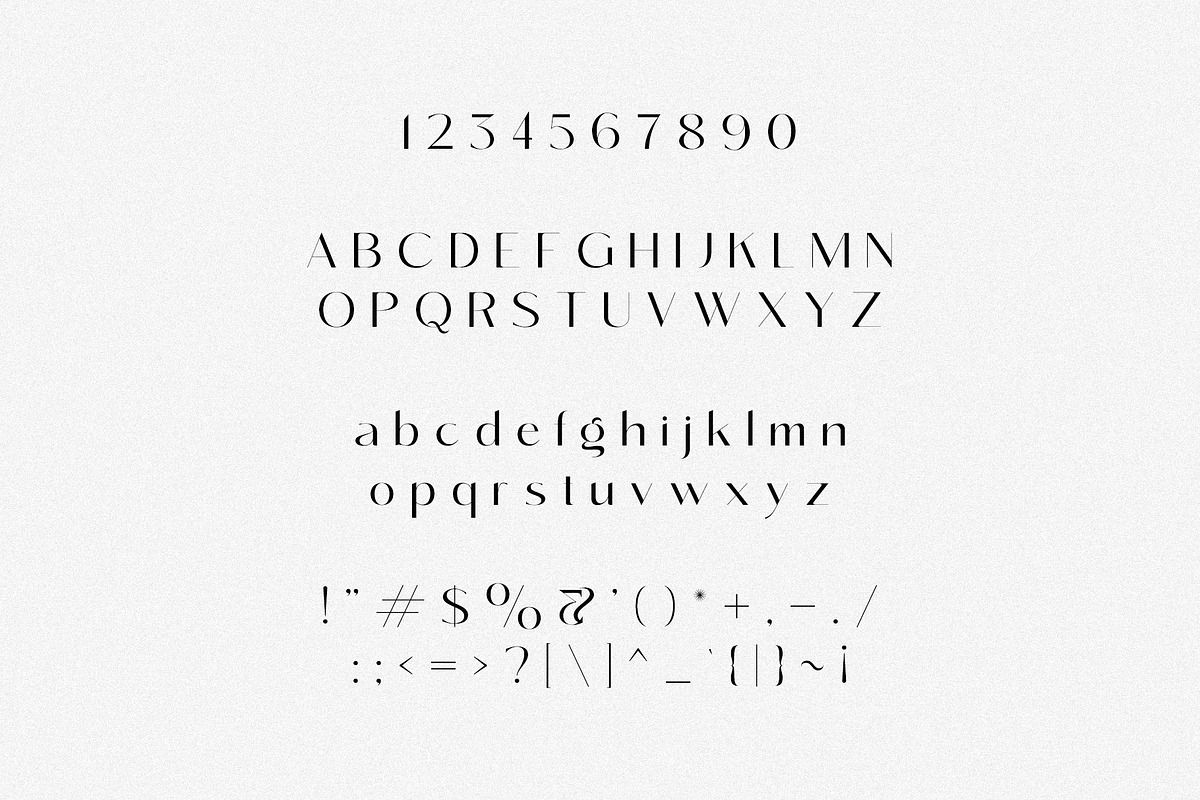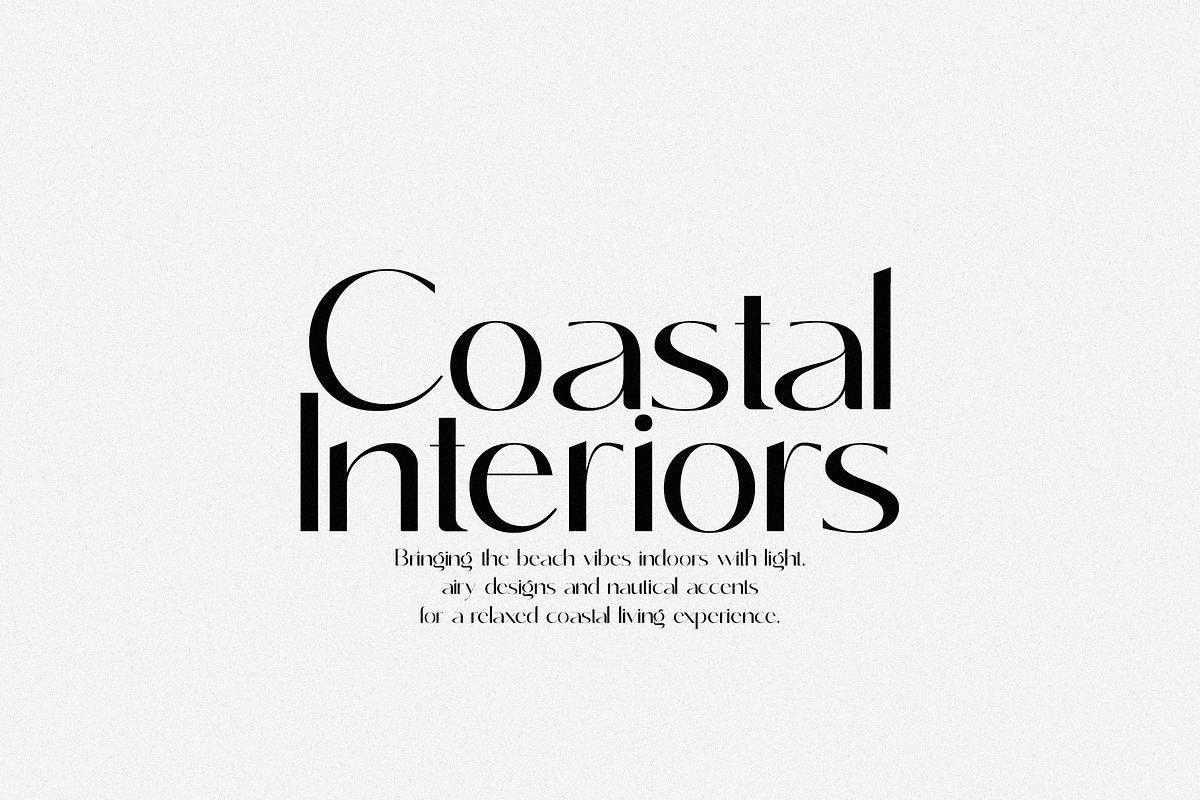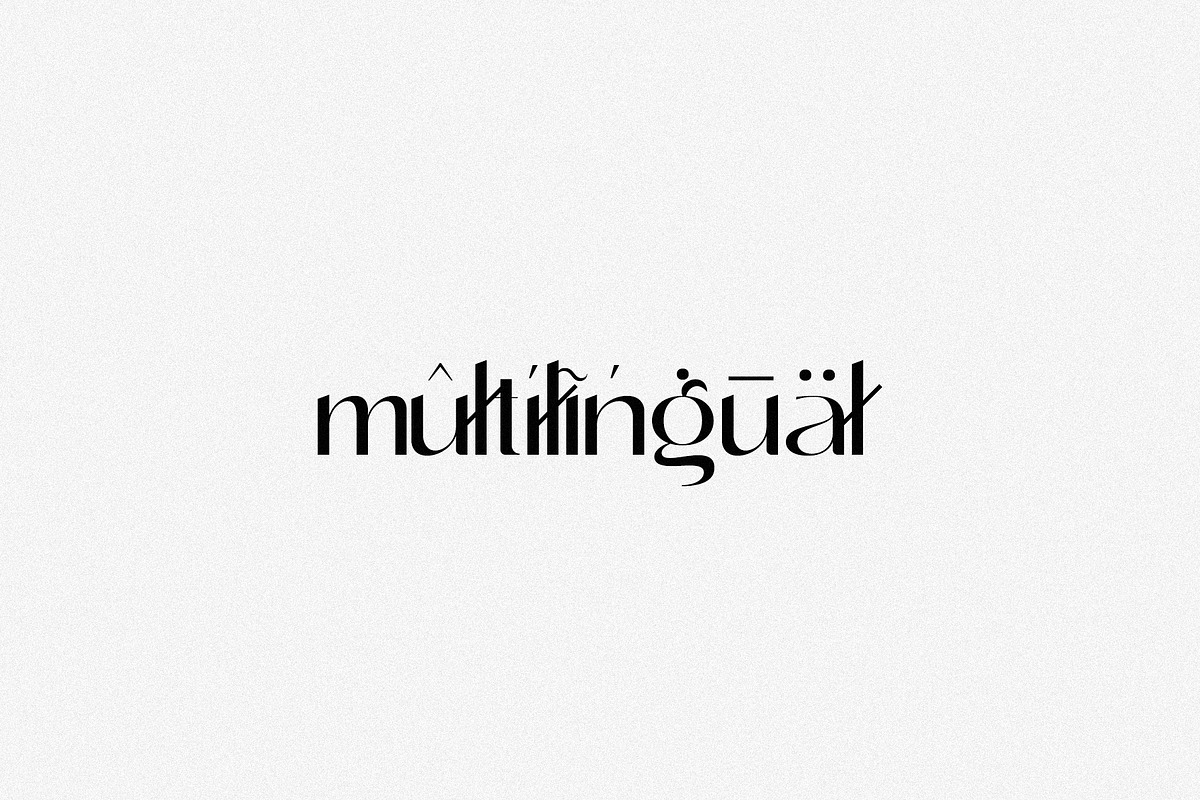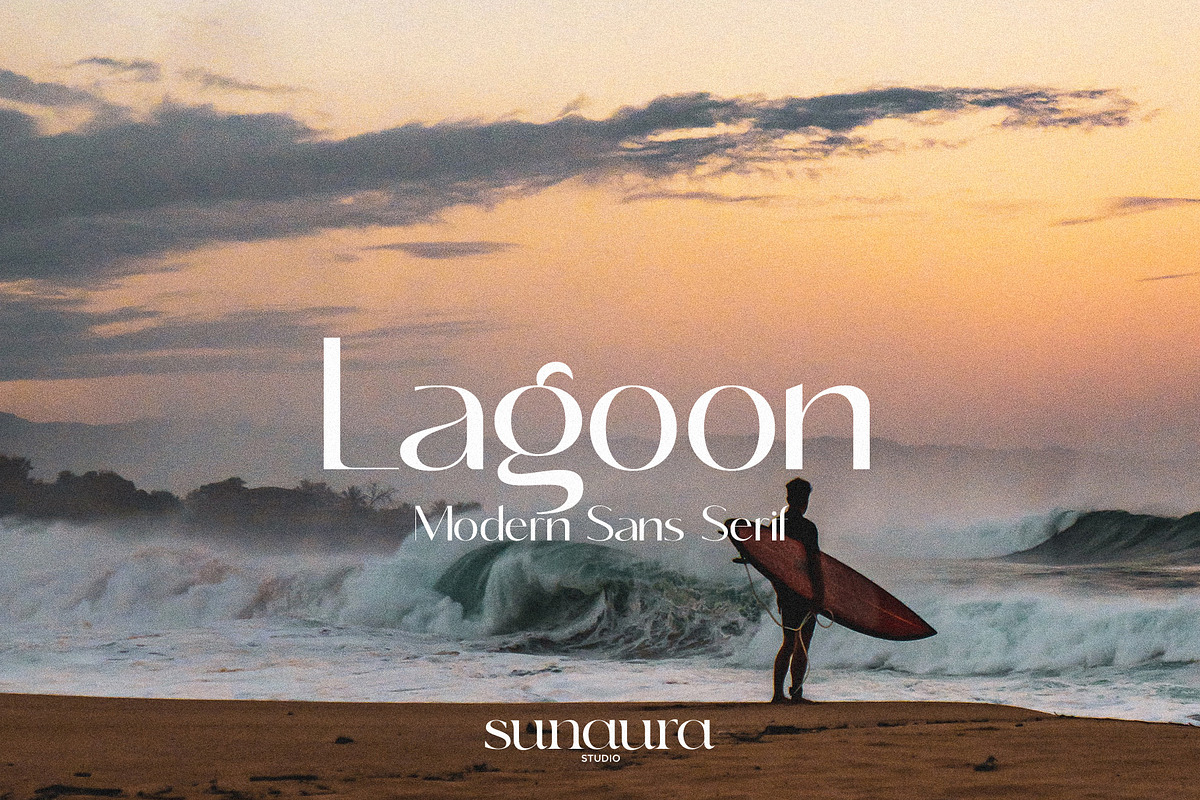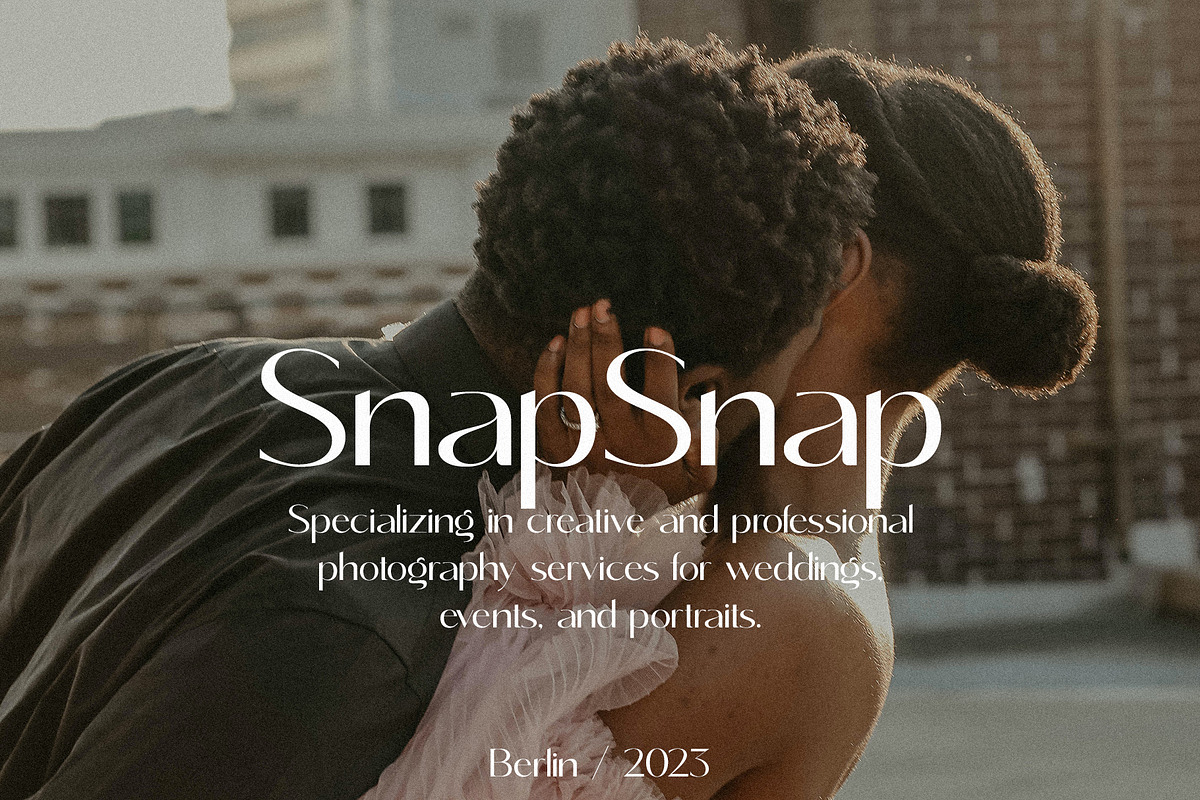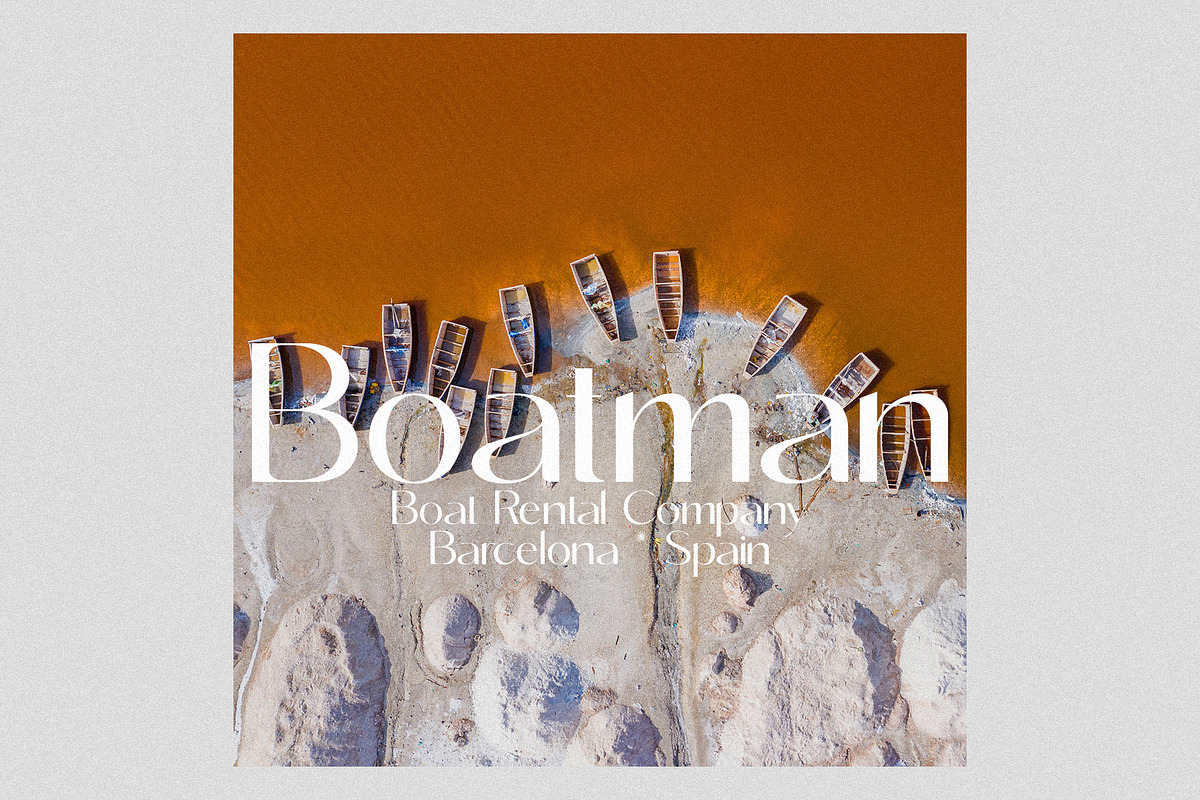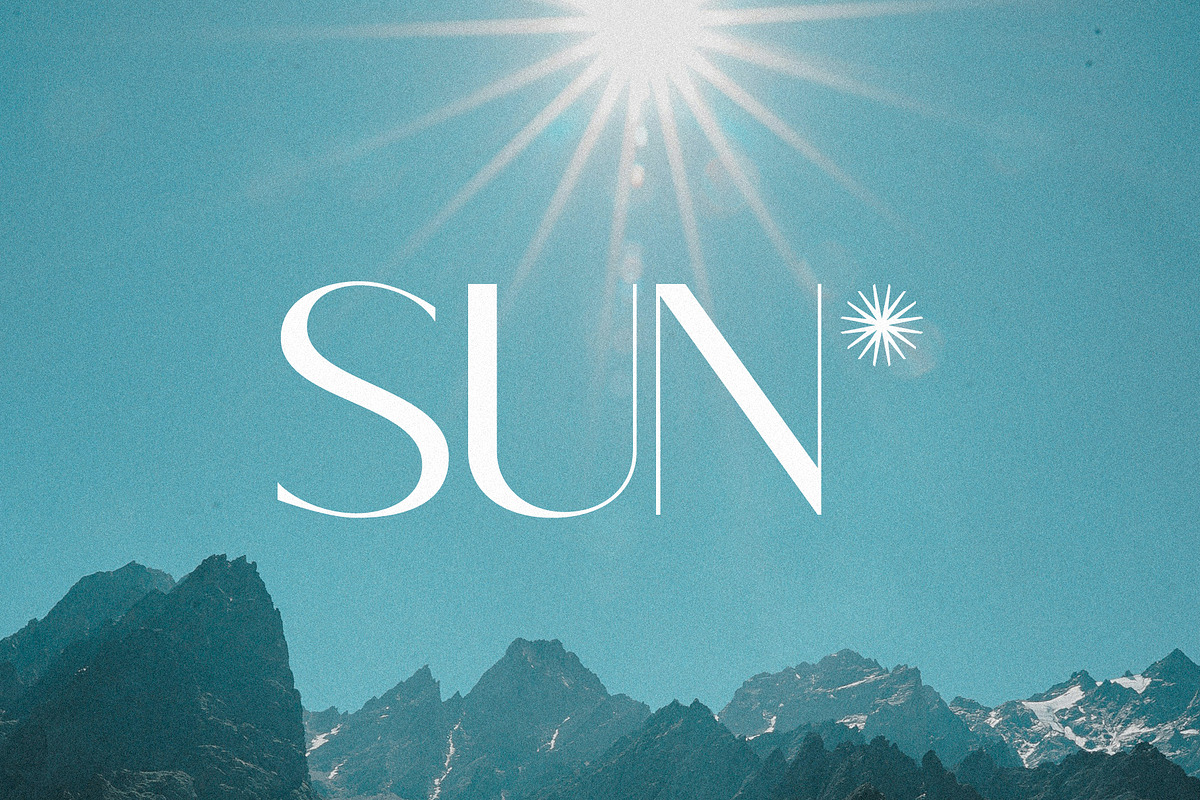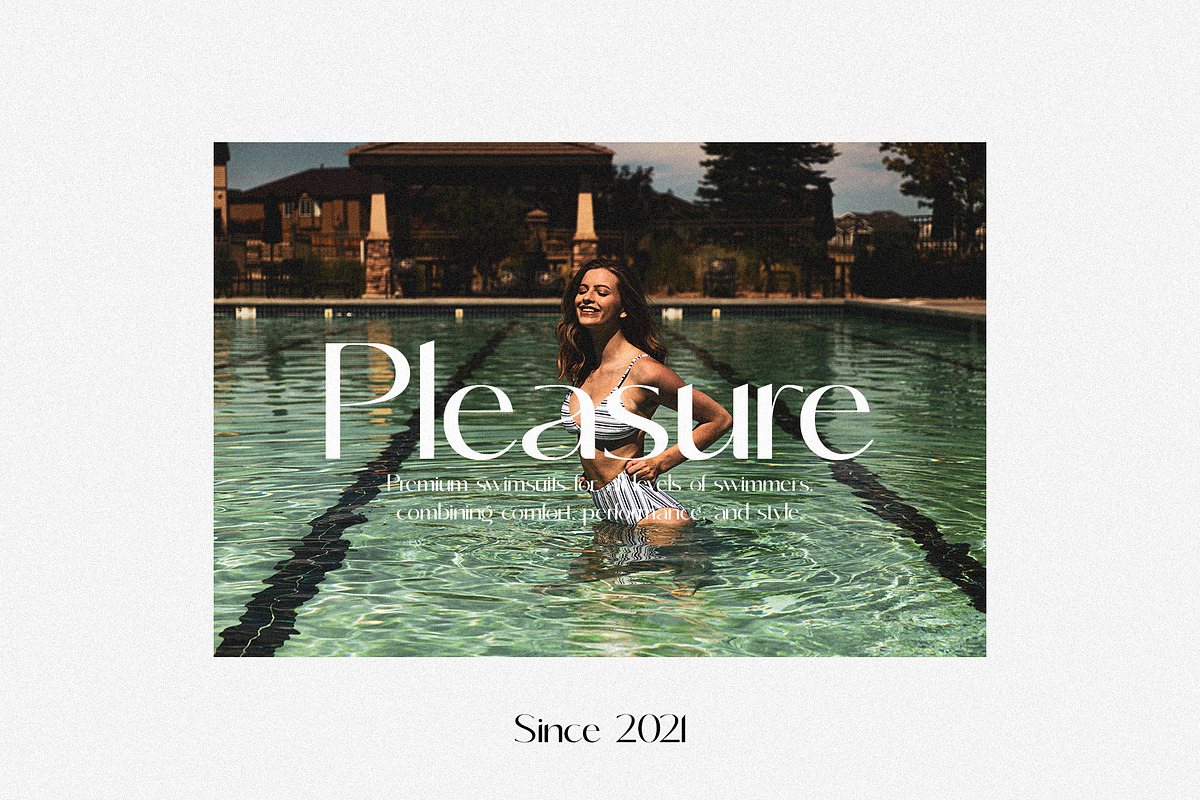
Lagoon - Modern Sans Serif
Lagoon is a modern sans serif font that features clean lines and a sleek design. It is perfect for creating a contemporary and professional look in various design projects, such as branding, advertising, and web design. With its versatile style, Lagoon can be used for both headings and body text, making it a versatile choice for any designer looking for a modern and stylish font option. Lagoon features multilingual support, over 250+ glyphs, uppercase & lowercase letters, numbers & symbols.